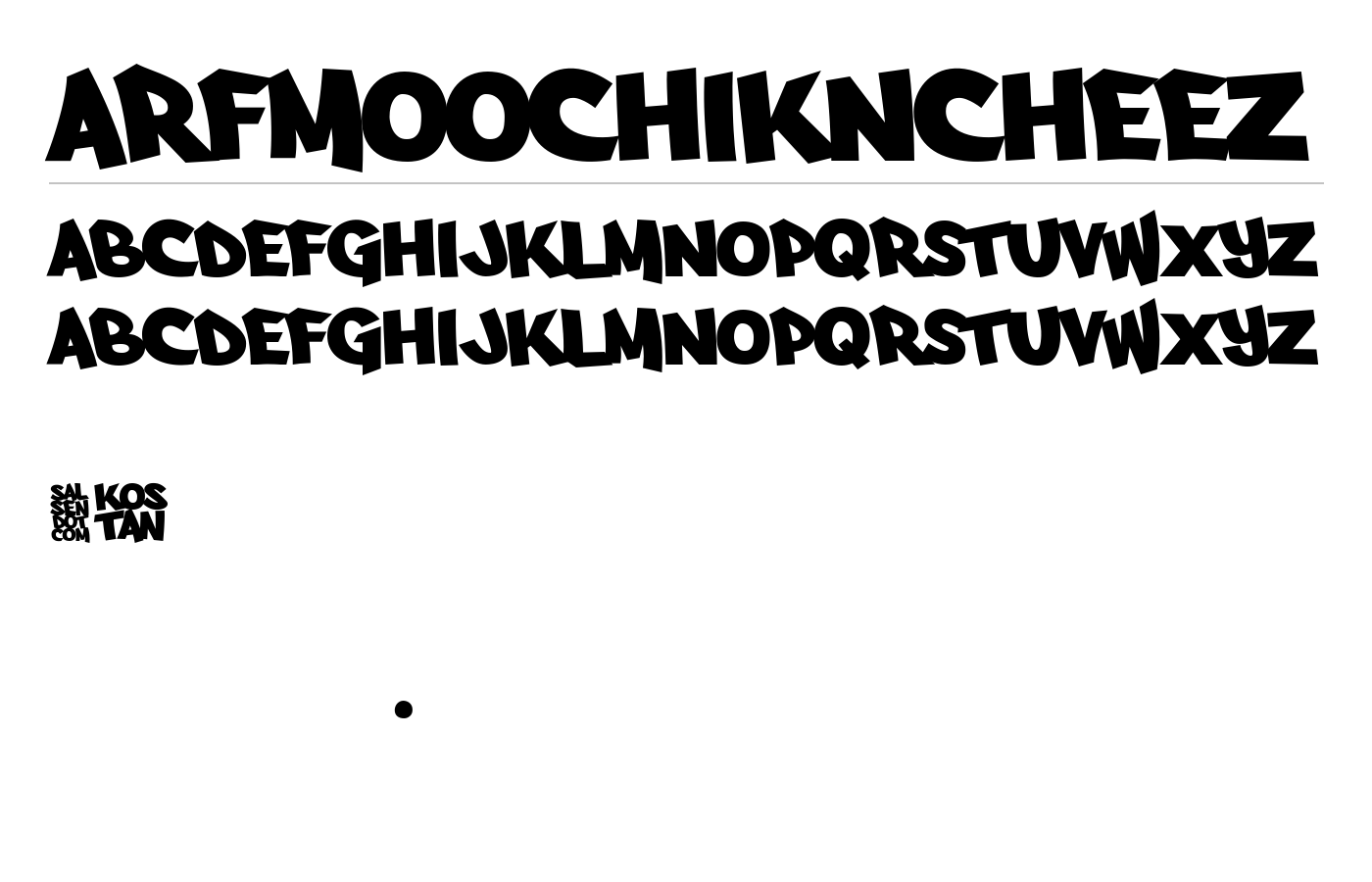
Arfmoochikncheez is a bold, playful sans serif font with a chunky, irregular style that gives it a fun and casual personality. Its thick, heavy strokes and slightly uneven shapes make it ideal for eye-catching headlines, kids’ designs, or any project needing a quirky, energetic vibe. This font works best in informal contexts where a lively, approachable look is desired.